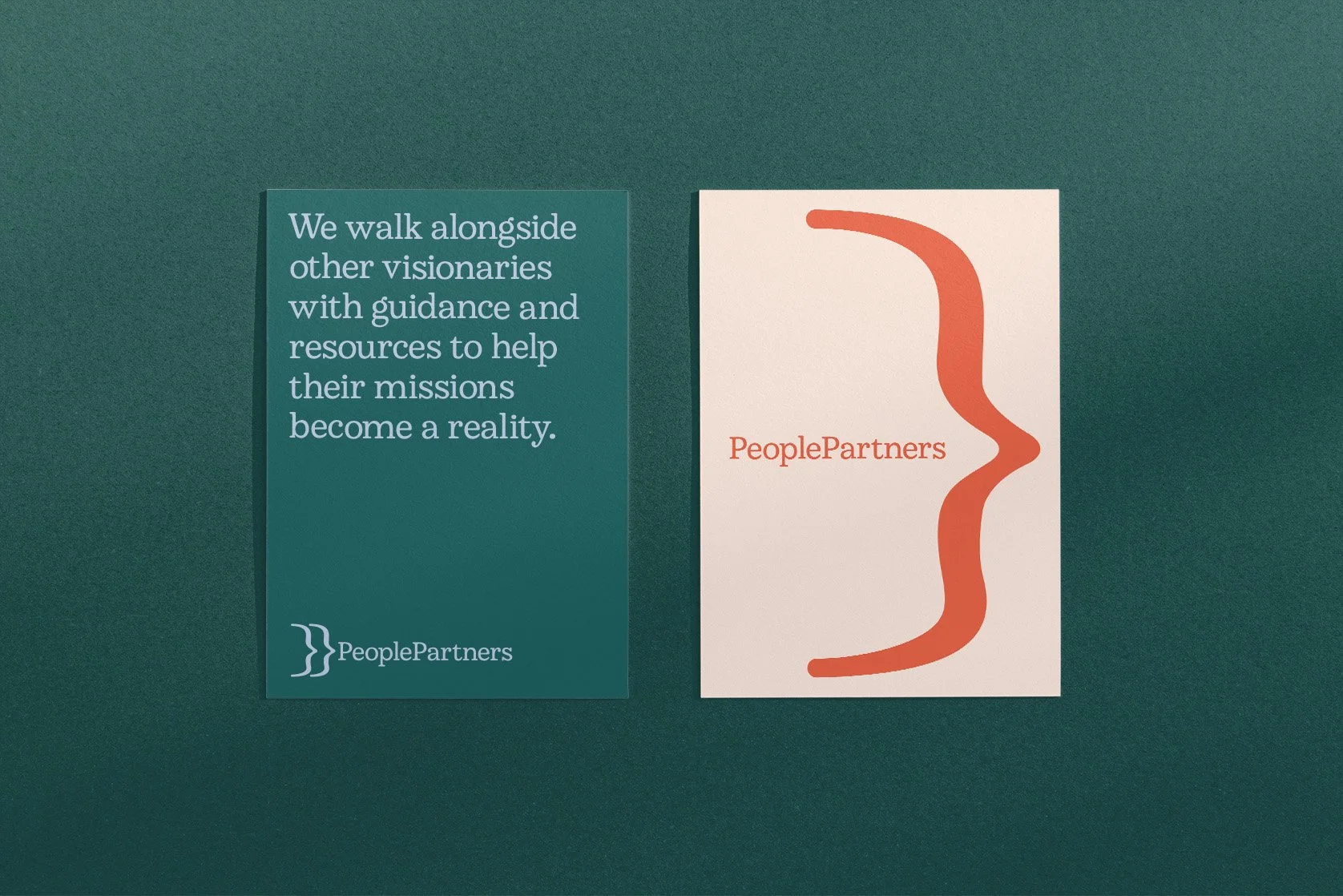
People Partners Foundation Identity & Typeface
The vision for People Partners Foundation was born at a time of great strife in our country and world. The upheaval of a global pandemic, societal division, and the decline of basic human kindness brought our family deep sadness and despair. This changed our perspective to focus on those who were working to create positive change in our local community and beyond. This identity and custom typeface revolve around the practice of founder’s, Annette Atwood’s, to typewrite notes of gratitude, encouragement to others. A simple, yet intentional practice that is symbolic of People Partners’ mission to link arms with others.